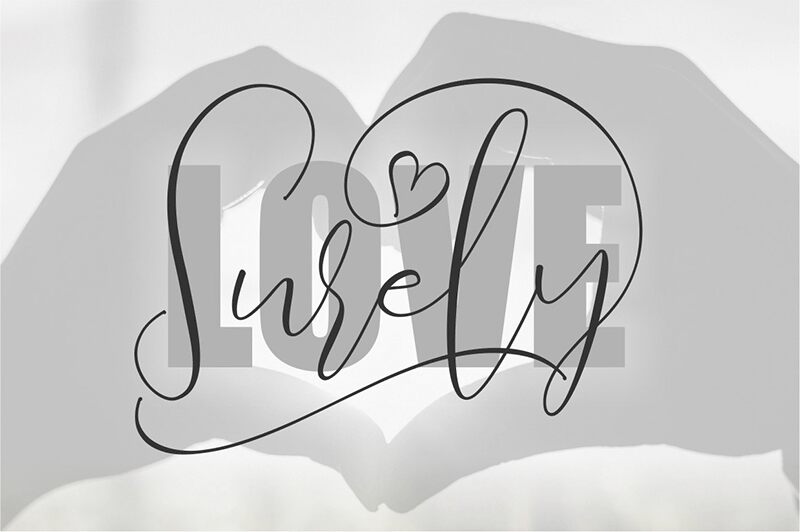
Love Surely, a captivating calligraphic font crafted by Bonjour Type, exudes a sense of effortless elegance and refined grace. With its delicate, light strokes and undulating curves, this font radiates a warm, inviting aesthetic that instantly captures the viewer's attention. The fluid, script-like letterforms convey a touch of whimsy and charm, making this font a compelling choice for projects seeking to evoke a sense of romantic charm and timeless sophistication.
The versatility of Love Surely lends itself to a wide range of design applications, from elegant wedding invitations and love letters to charming product packaging and high-end branding. Its calligraphic style effortlessly blends the traditional and the modern, making it an ideal selection for projects that aim to strike a balance between classic appeal and contemporary elegance. Designers seeking to infuse their work with a touch of refined artistry will find Love Surely to be a captivating and versatile addition to their creative toolkit.
Love Surely
Bonjour Type